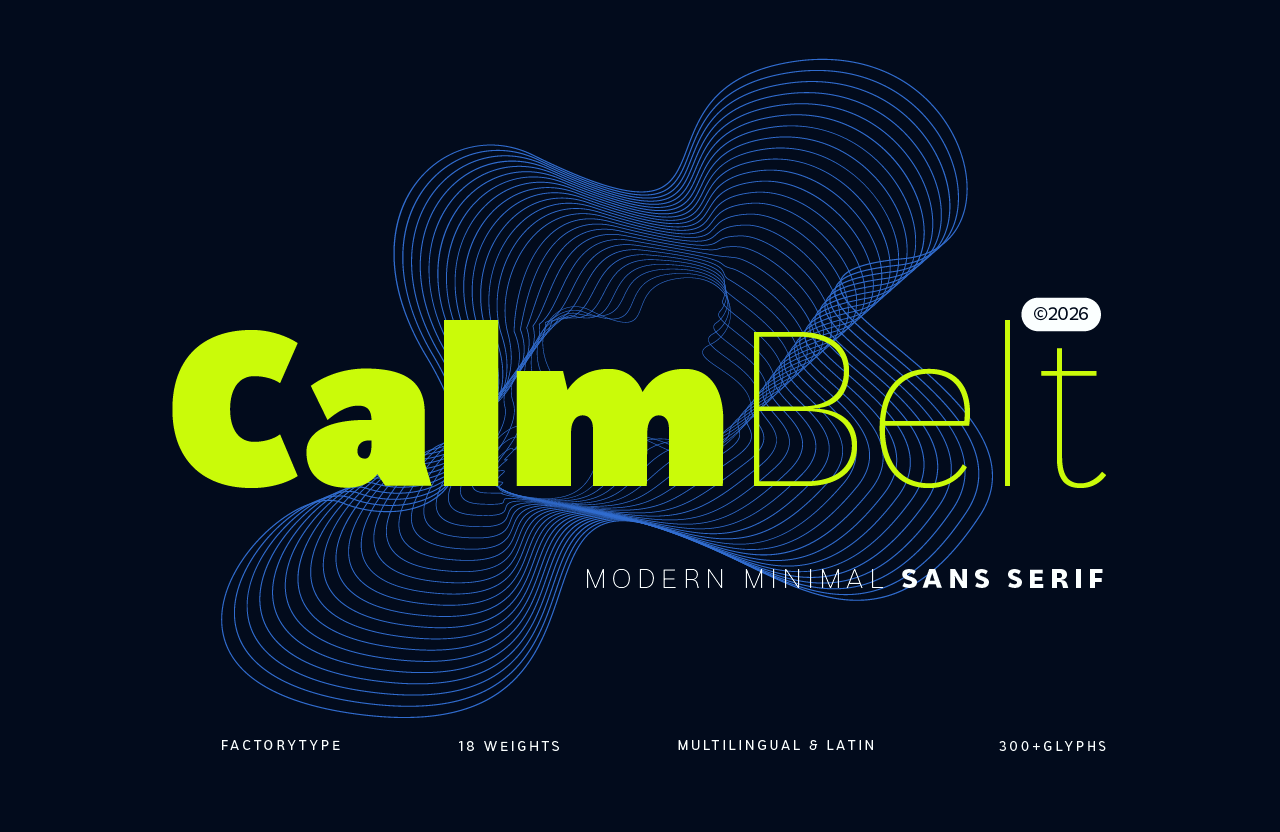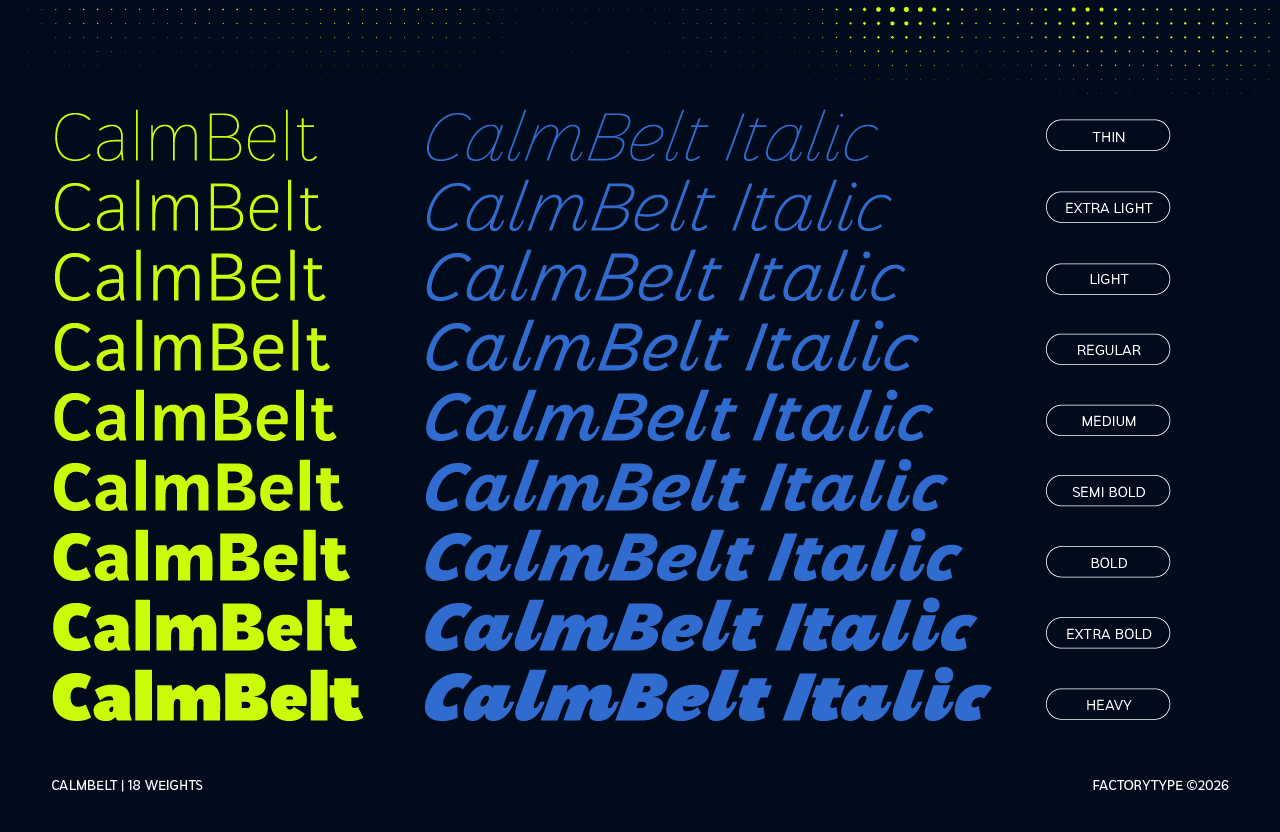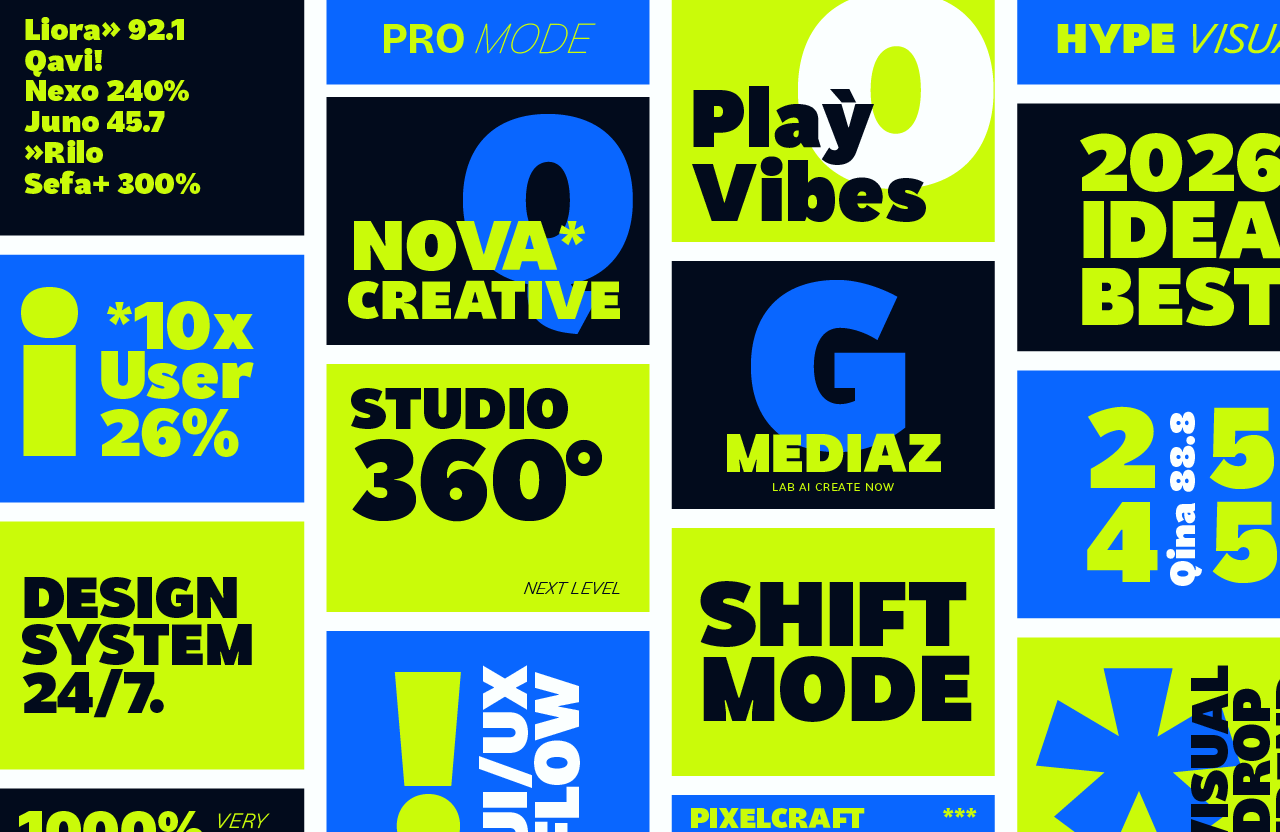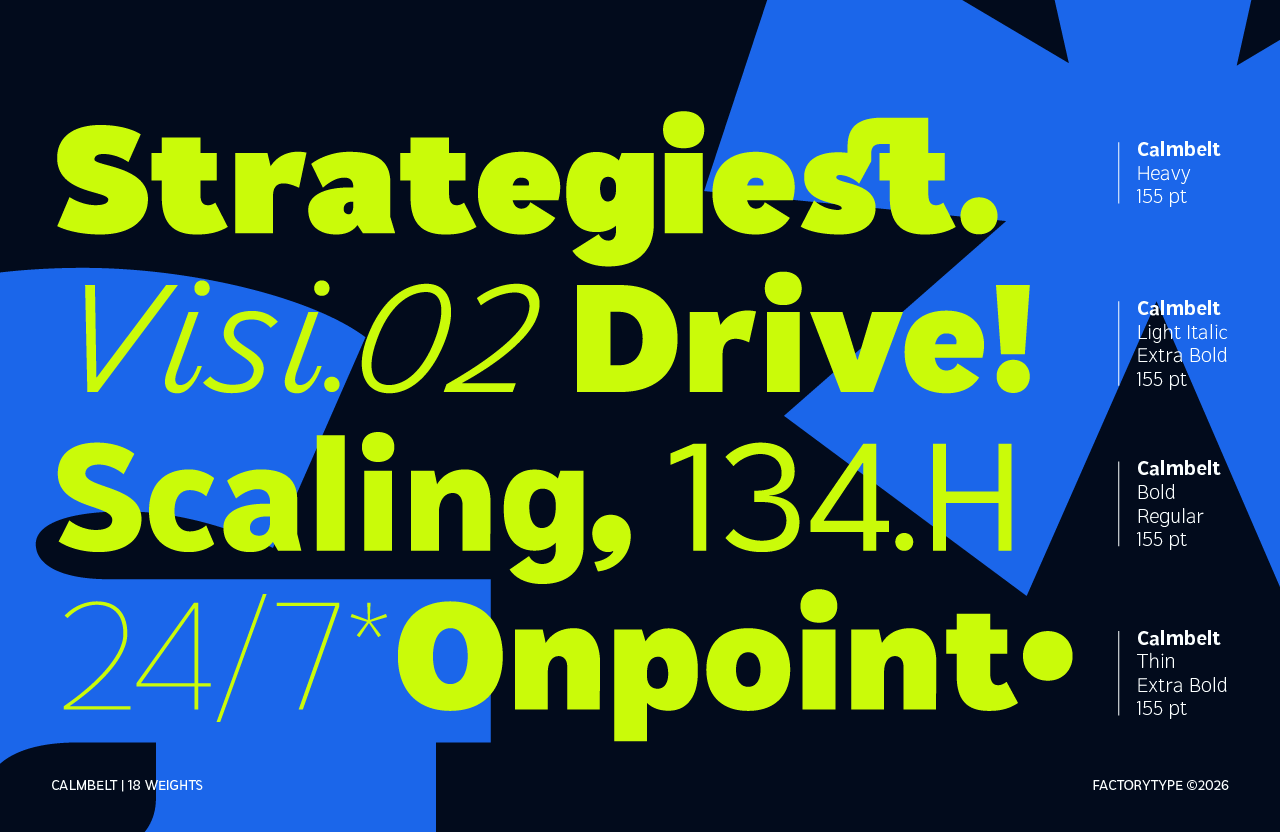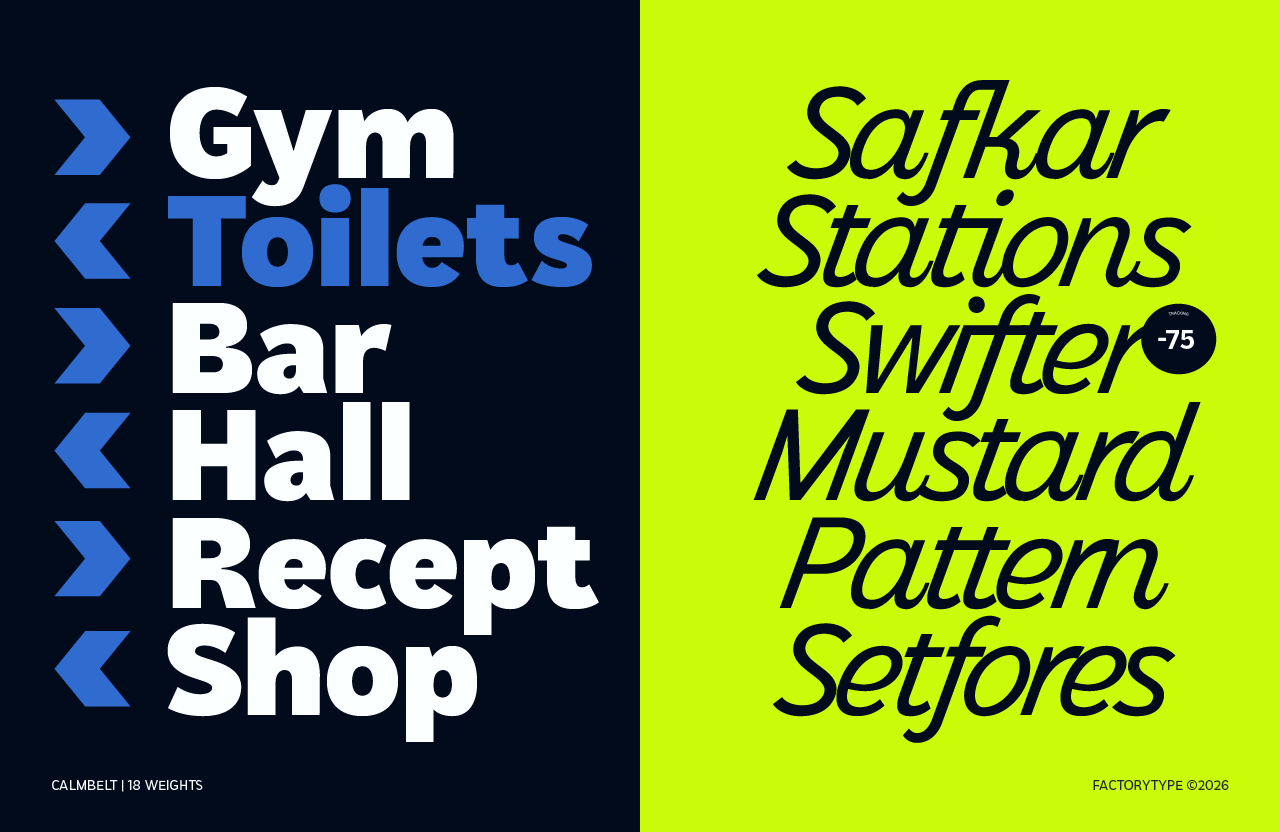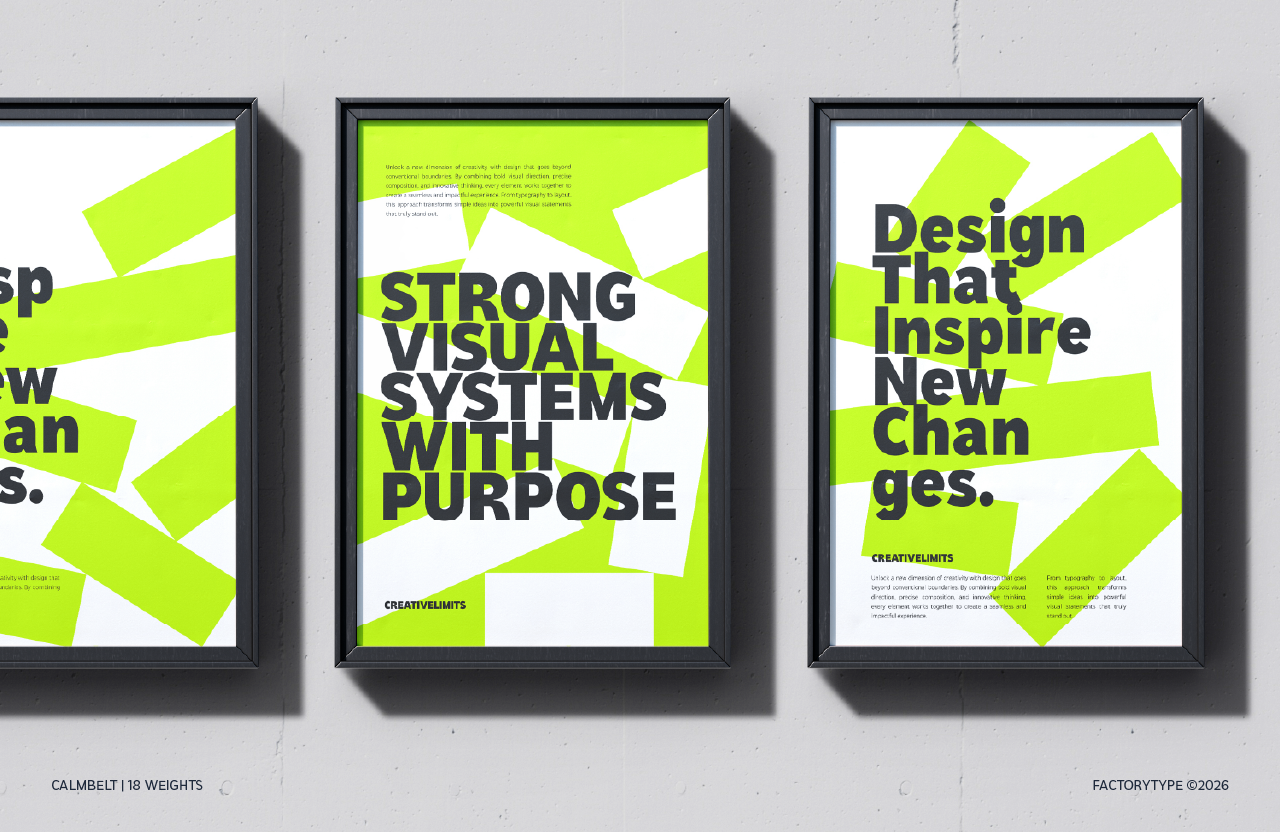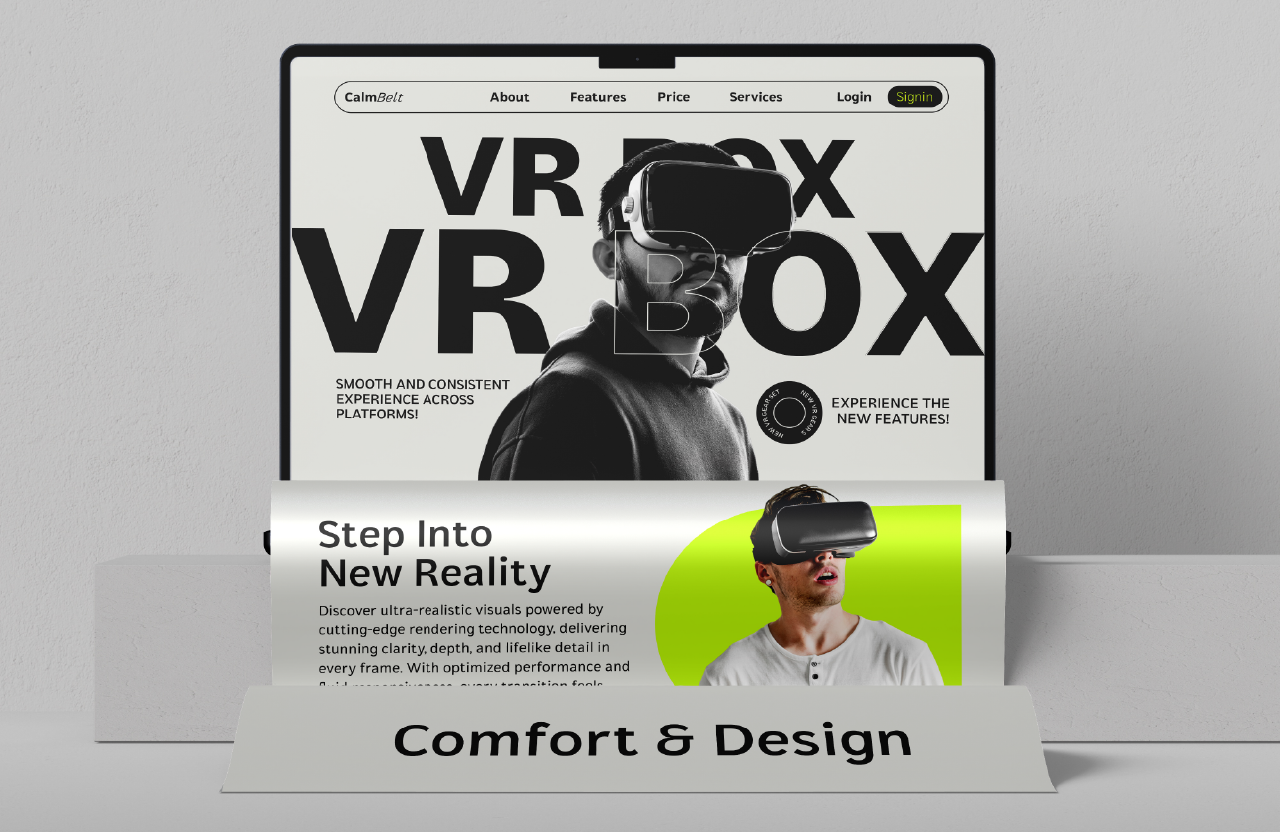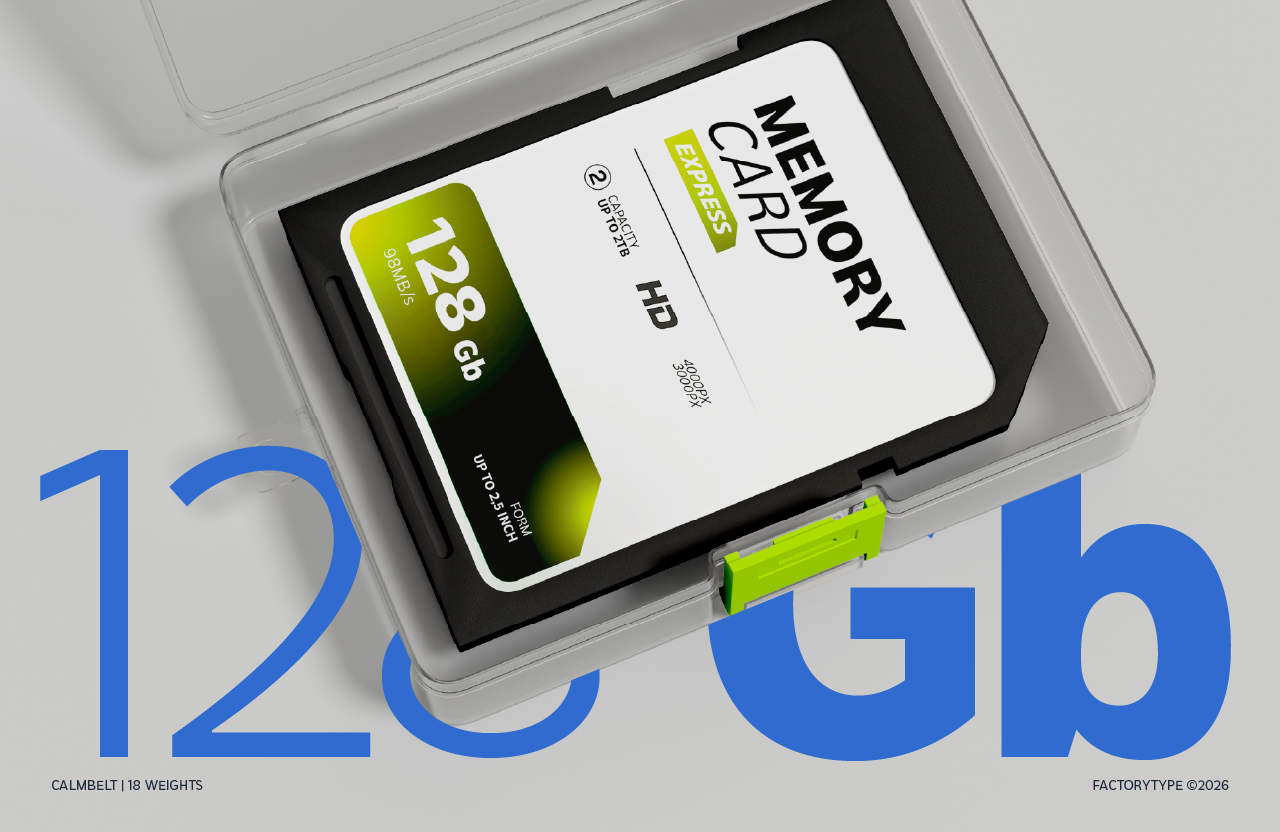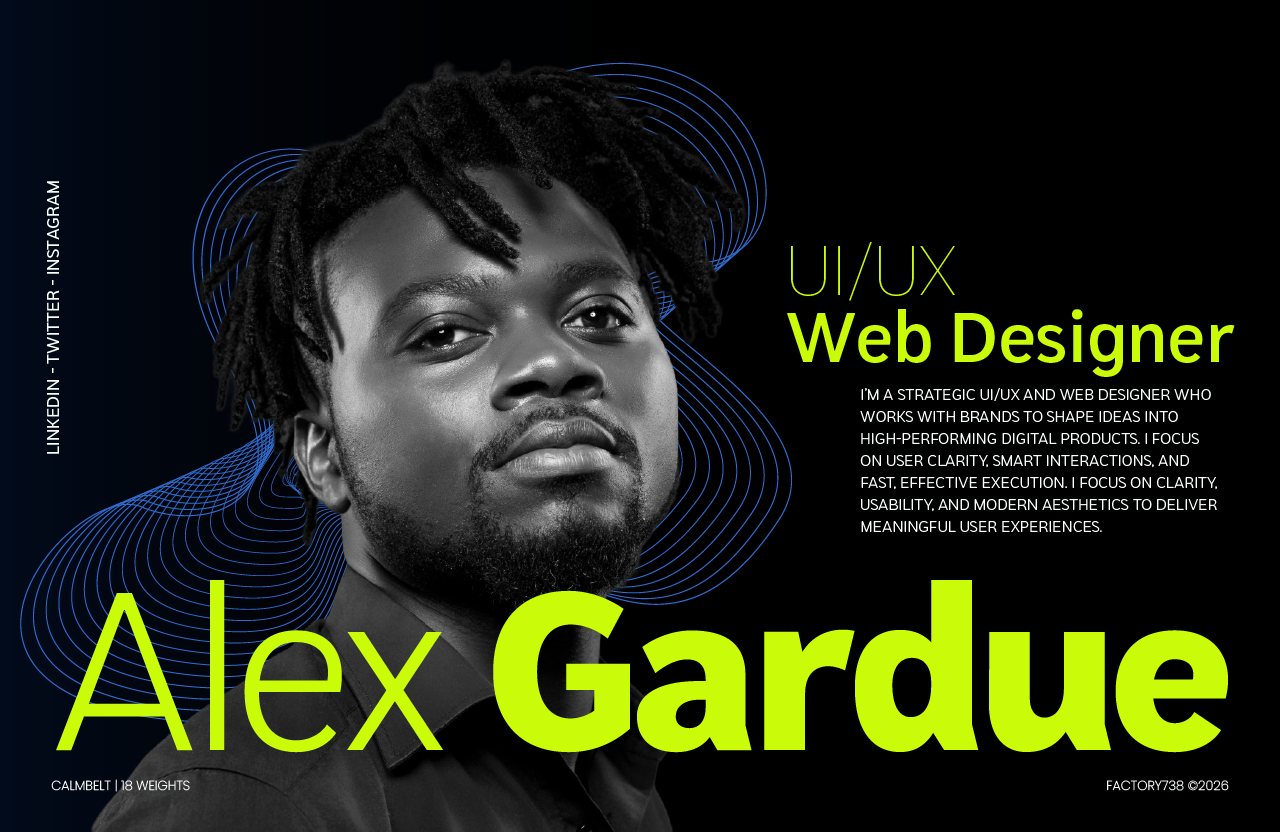
CalmBelt — Modern Minimalist Geometric Sans Serif
Elevate your visual communication with CalmBelt, a clean and versatile geometric sans-serif family designed for clarity, balance, and modern professional systems.
Drawing inspiration from the precision of architectural minimalism, CalmBelt embodies a calm and neutral tone that adapts effortlessly to any design environment. It is purposefully designed for creators who need a dependable yet contemporary typeface for brand identities, corporate communication, and high-performance UI/UX design that requires a sense of sophisticated simplicity.
Now featuring a comprehensive library of 18 styles, CalmBelt offers a seamless spectrum of weights—from a light and airy Thin to a strong, impactful Heavy. With its minimal contrast and refined geometric construction, this family ensures exceptional readability across all platforms, providing the timeless visual voice required for both subtle editorial layouts and bold corporate statements.
- Aesthetic Focus: Modern minimalist geometric design, tailored for tech branding, corporate systems, and professional lifestyle products.
- 18 Total Styles: A versatile collection of 9 weights across Regular and Italic styles for complete typographic flexibility.
- Professional Character Set: Over 300+ glyphs including essential Latin characters and refined symbols for smart interactions.
- Best For: UI/UX & web design, brand identity, corporate decks, presentation systems, and minimalist packaging.
- Global Language Support: Comprehensive multilingual support for seamless international communication.